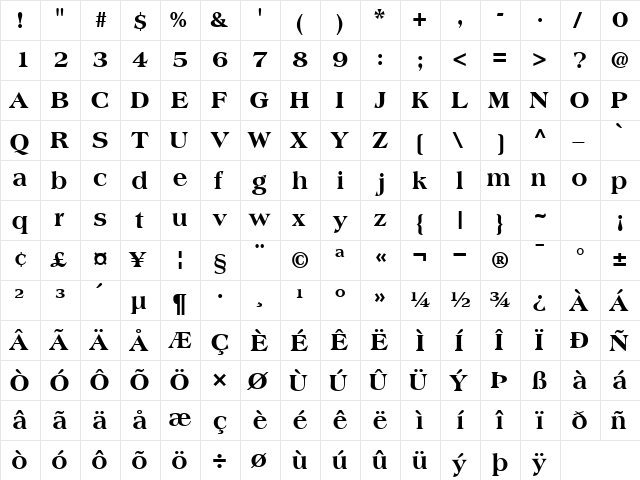
CountrysideBlackSSK Regular
Design Context for CountrysideBlackSSK Typeface
CountrysideBlackSSK offers clean, dependable letterforms without strong stylistic allegiance, making it a practical choice for designers who need flexibility.